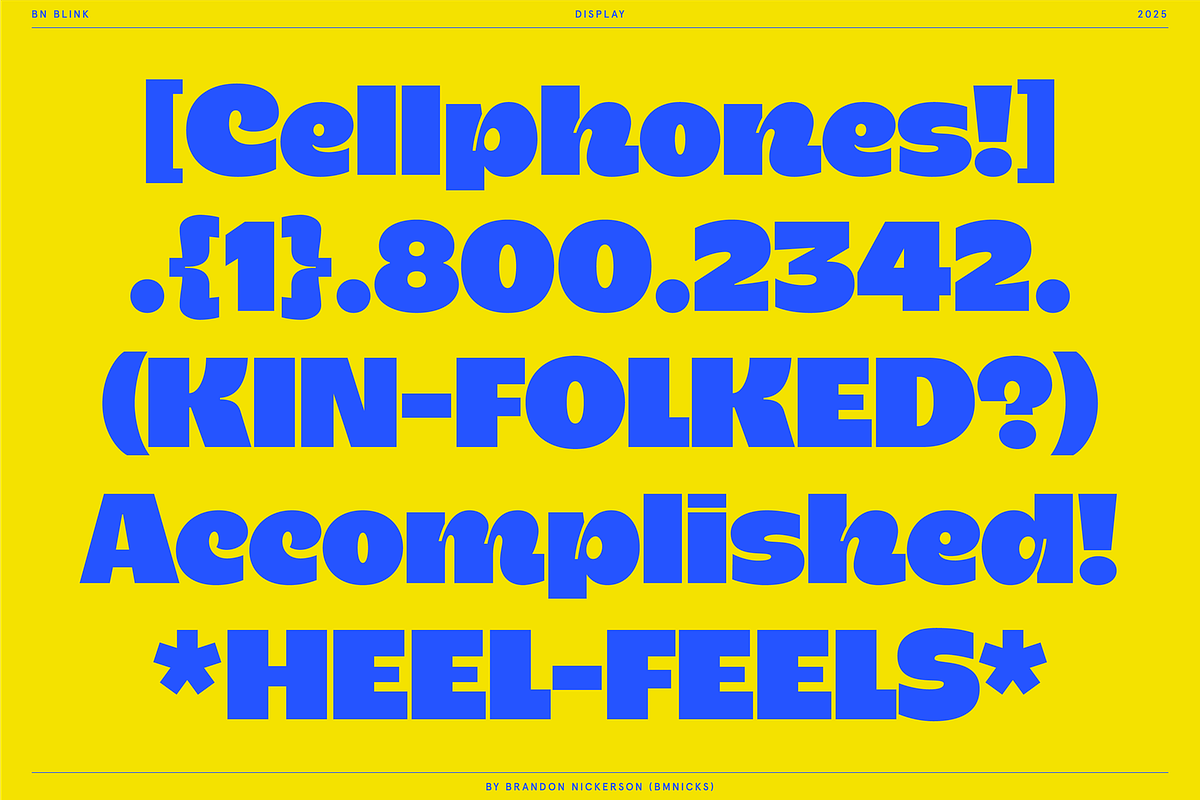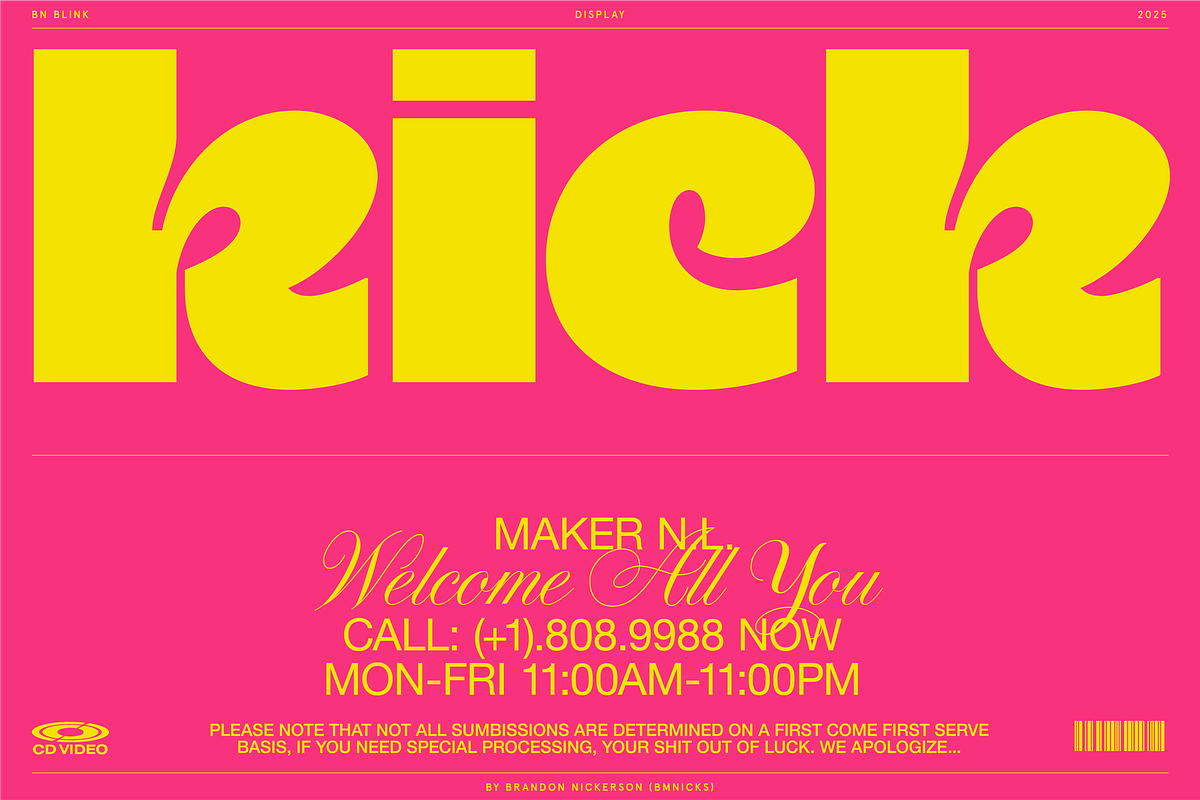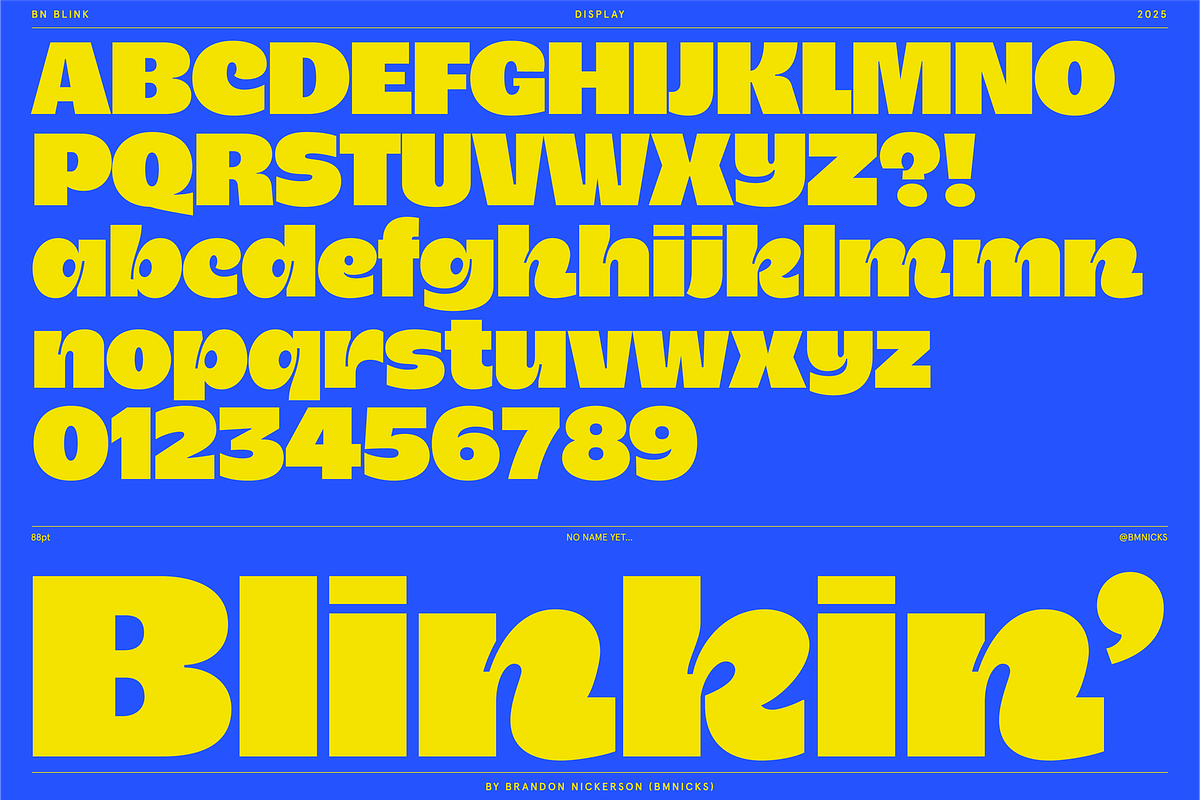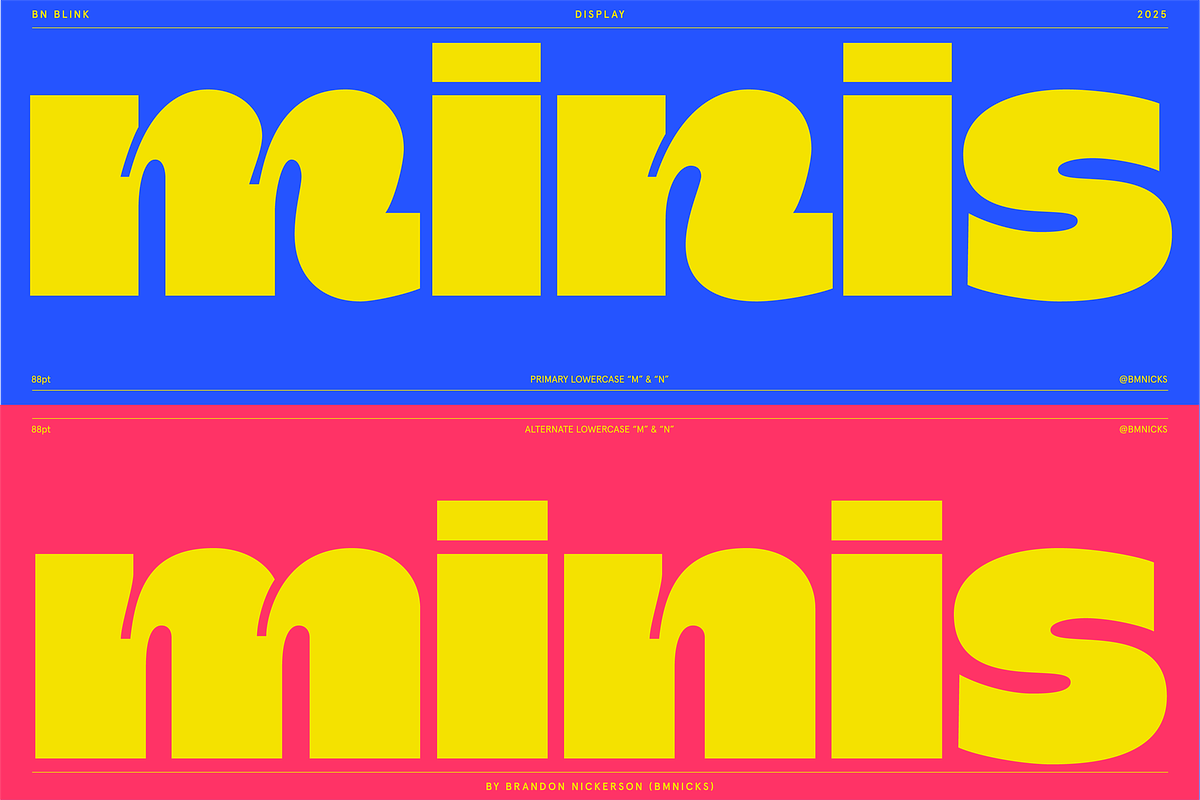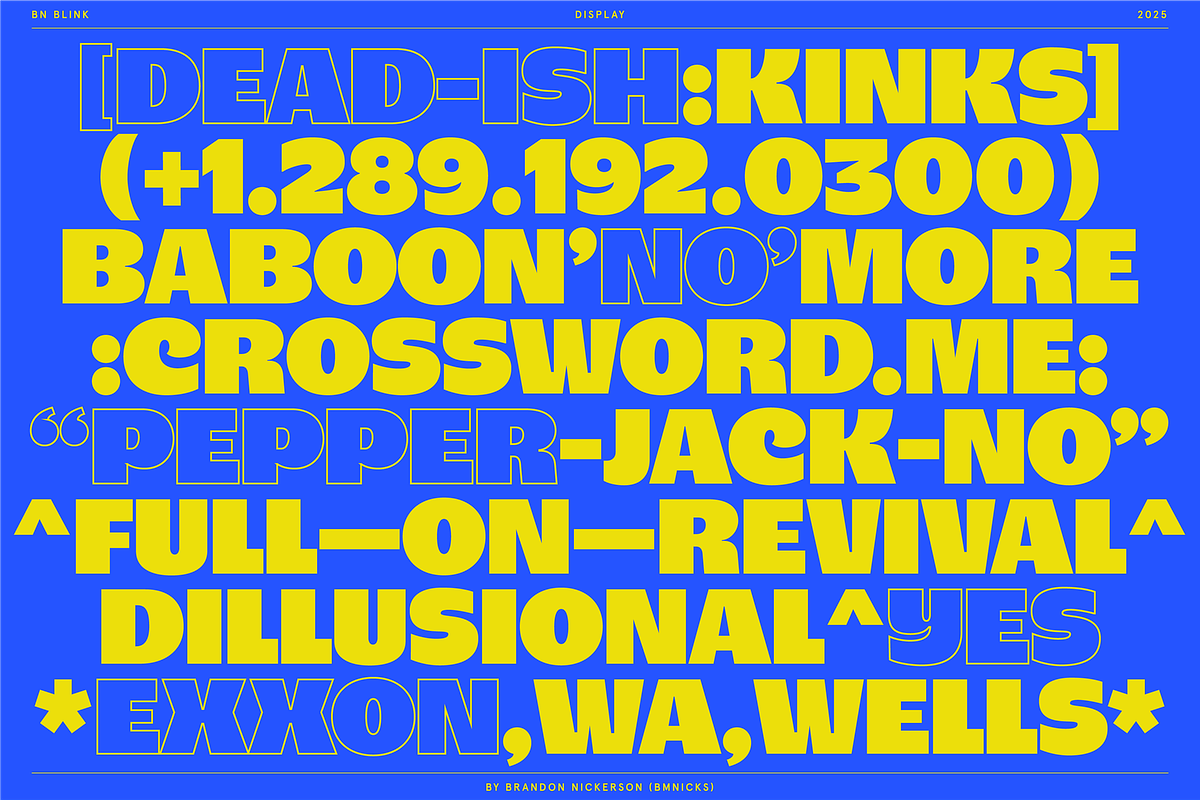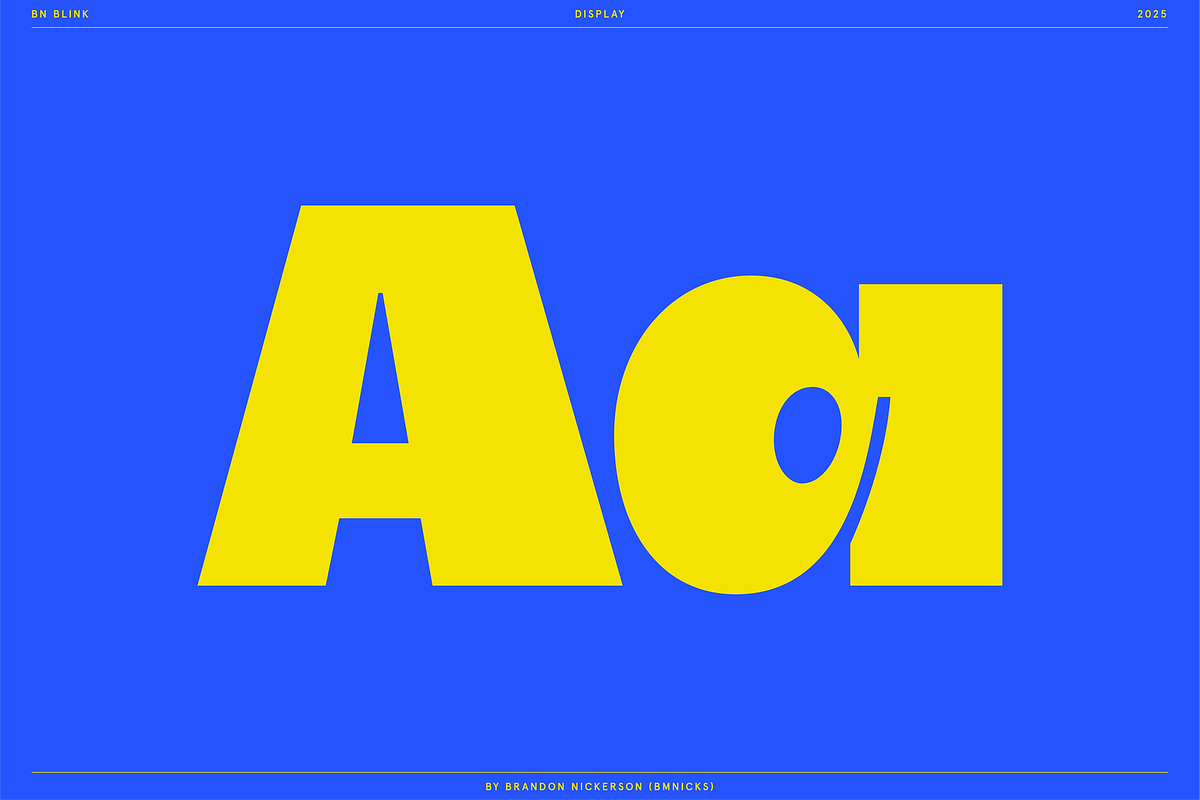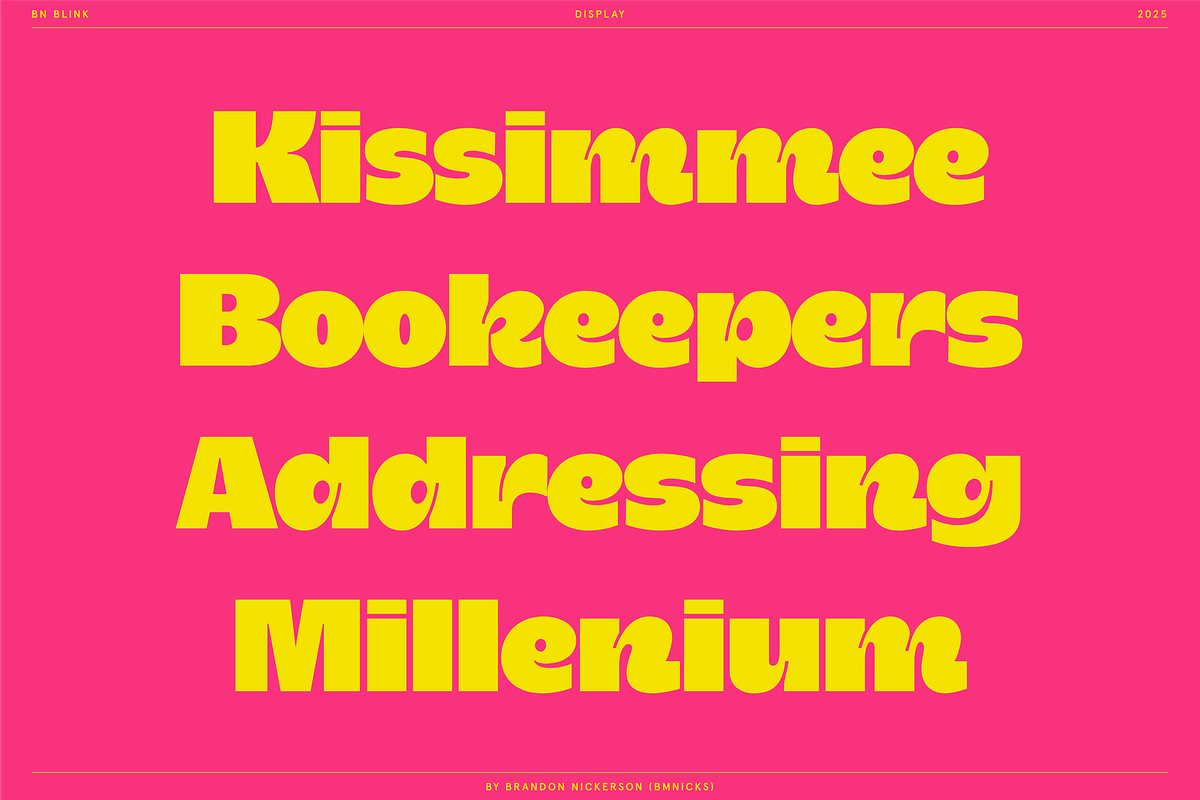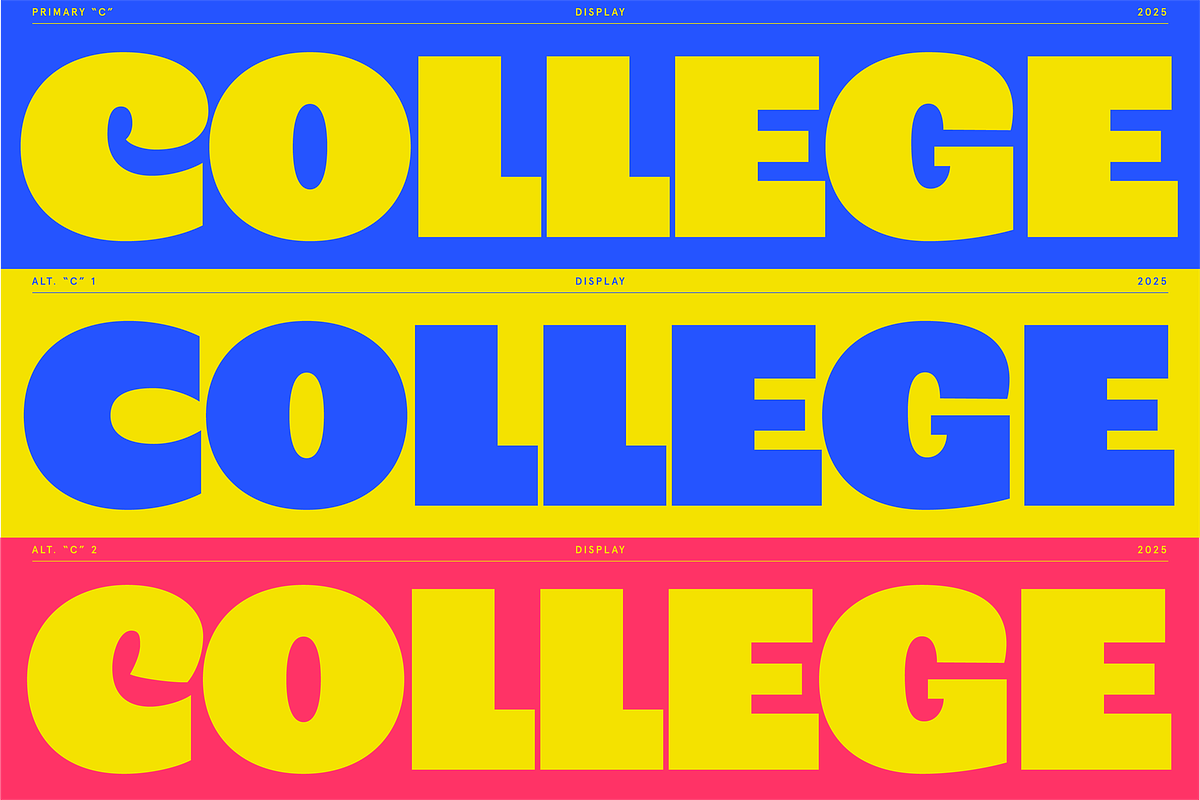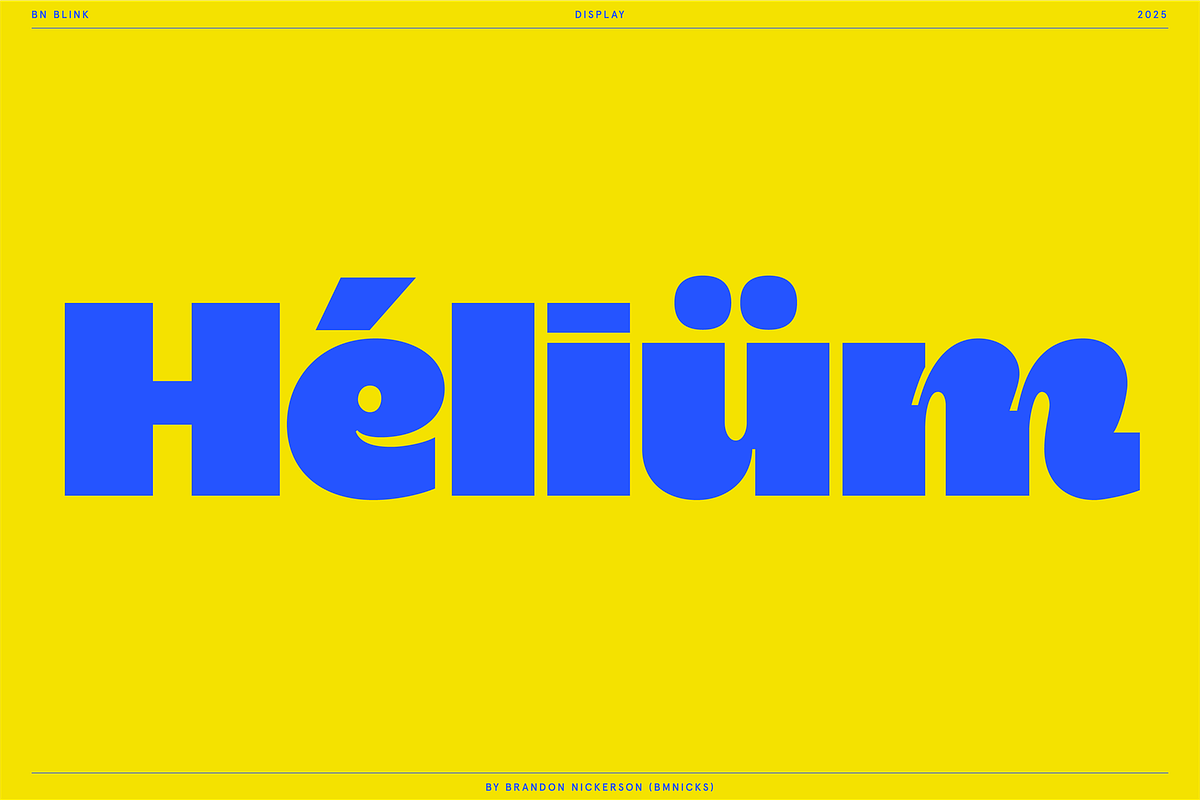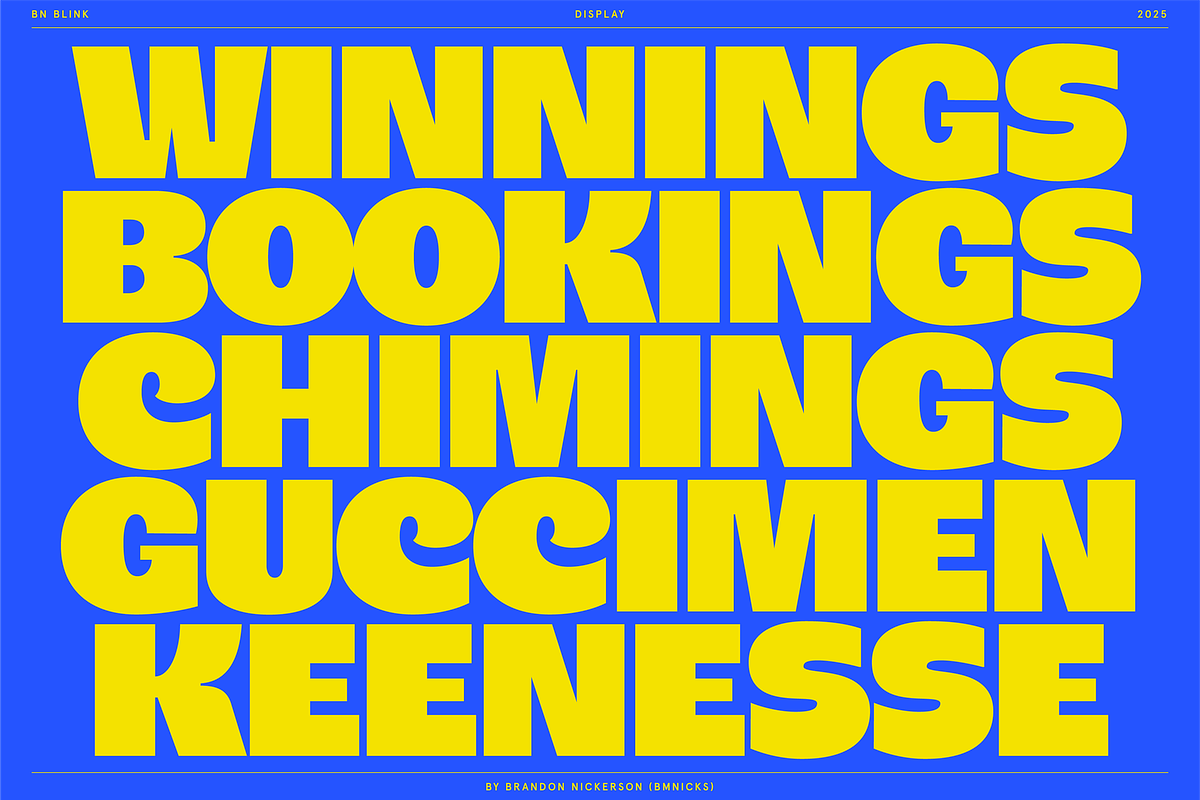
BN Blink
BN Blink is a bold display typeface made for big, attention-grabbing typography. Its chunky shapes, smooth curves, and clean structure give it a strong personality while staying easy to read at large sizes. Perfect for posters, branding, headlines, and any layout that needs to be heard. Download now and get creative!